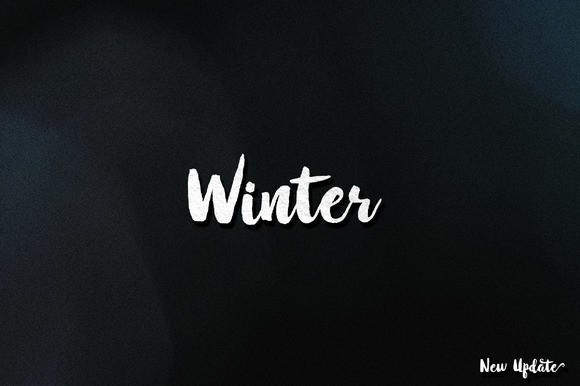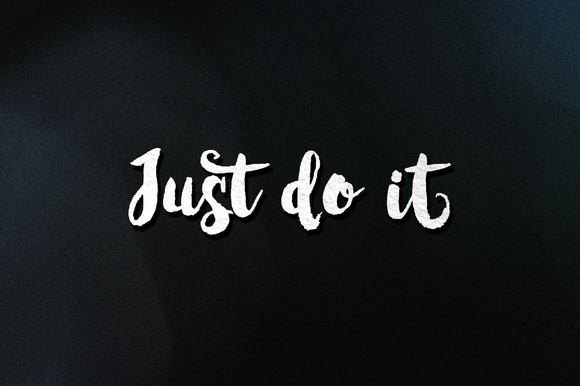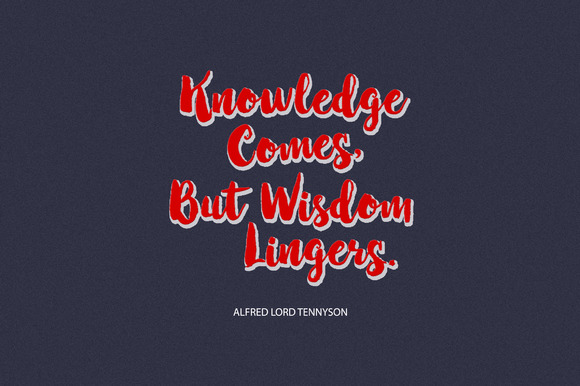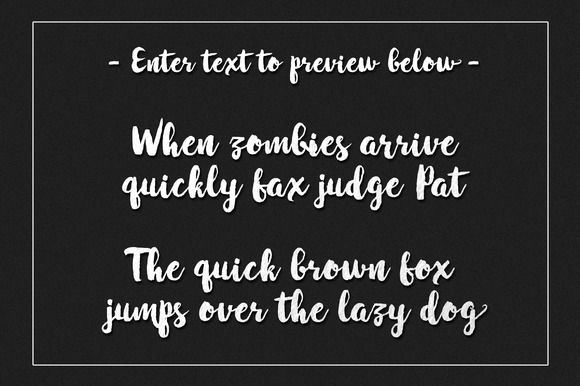
Winter Brush Font
About Winter Brush Font
Winter brush is a modern fluid hand marker font created by Barland.
This beautiful font is packed with 417 unique glyphs.